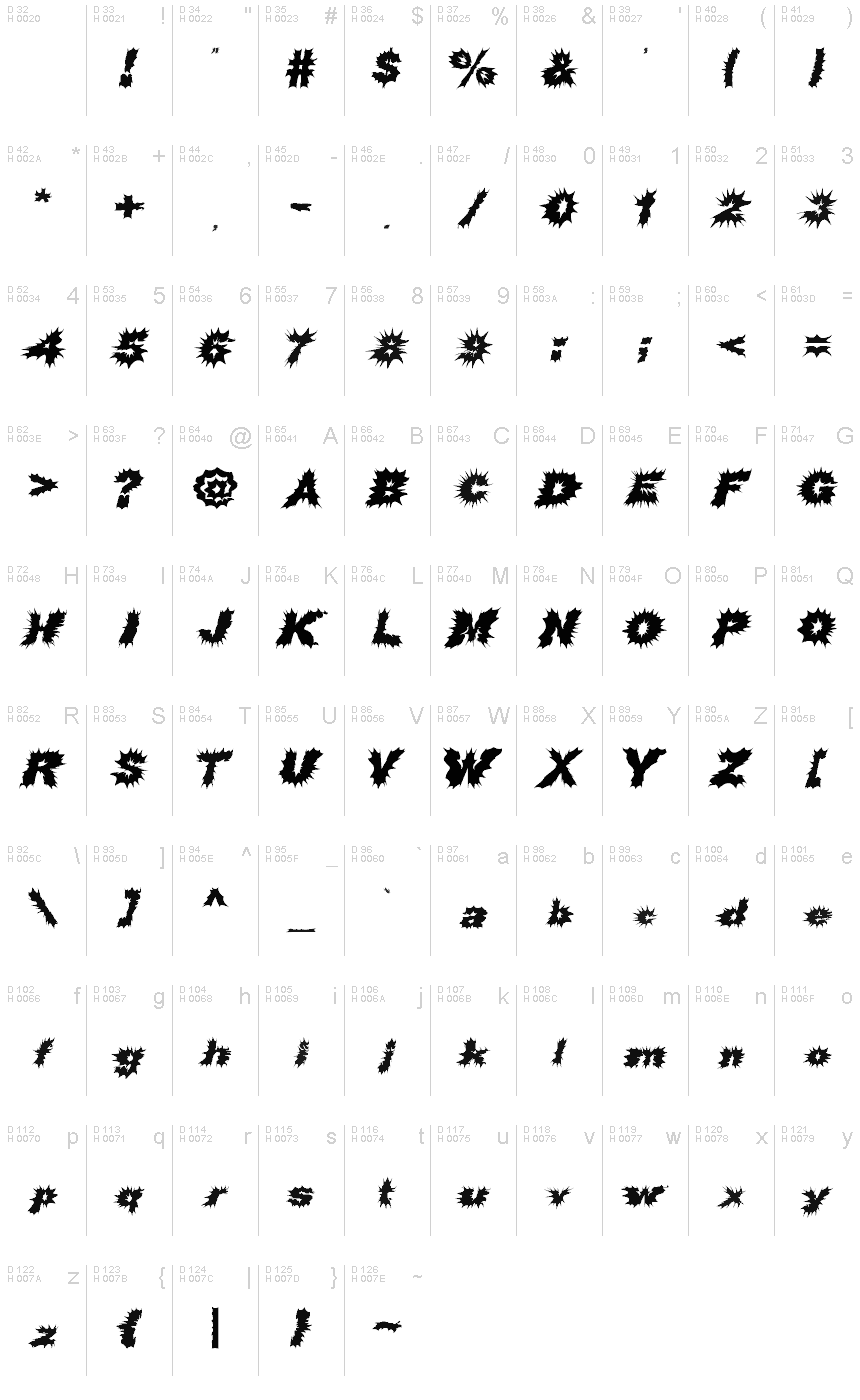
Shock Rock
Shock Rock is a bold statement in the realm of display fonts, crafted by the imaginative Ezkiel Hughes. With its distorted style and semi-expanded width, this font exudes an energetic rebellion that captures the essence of its name. The jagged edges and spiky contours convey a sense of raw power and electric vibrancy, making it an ideal choice for projects that aim to stand out with a punch of visual intensity.
The robust weight of Shock Rock ensures that it holds its ground in any creative composition, commanding attention with every character. Whether it's for bold headlines, striking posters, or edgy branding campaigns, this font has the potential to infuse your designs with an undeniably audacious spirit. Embrace the unique aesthetics of Shock Rock and let your creative endeavors echo with the dynamism they deserve.